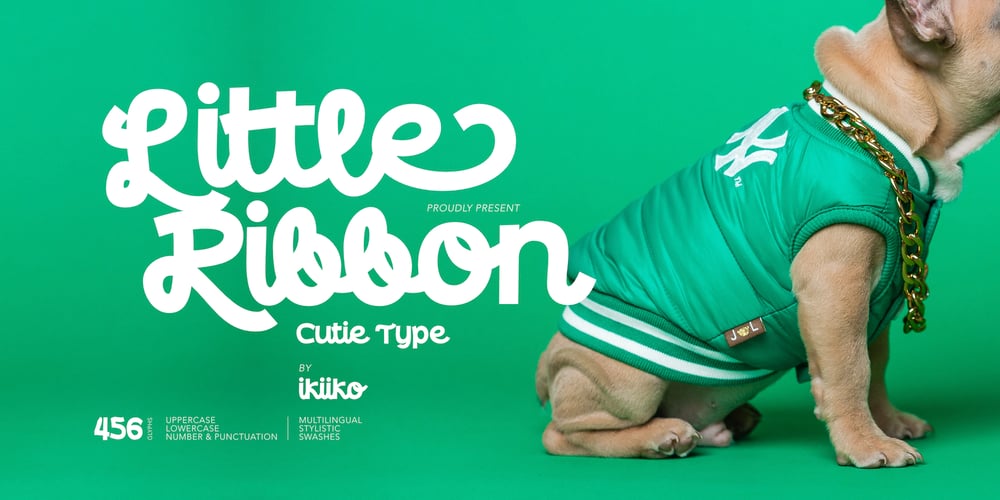
Little Ribbon Font Family was designed by Wahyu Eka Prasetya, Andhika Pradana and published by IKIIKOWRK. Little Ribbon contains 1 styles and family package options. Introducing Little Ribbon – Cutie Type, created by ikiiko.Little Ribbon is a beautiful handwritten typeface with bold shapes combining simple lines. This letter is suitable if you want to show a cheerful impression or playful design with solid color. This typeface is perfect for an kids stuff like ads, poster, flyer, or email blast. And also good for packaging product, food & beverages, quotes, or simply as a stylish text overlay to any background image.What’s included? Uppercase & Lowercase Number & Punctuation Stylistic & Swashes Multilingual Support Get also a good offer & FREEBIE at our site : www.ikiiko.comEnjoy our font and if you have any questions, you can contact us by email : ikiikowrk@gmail.com